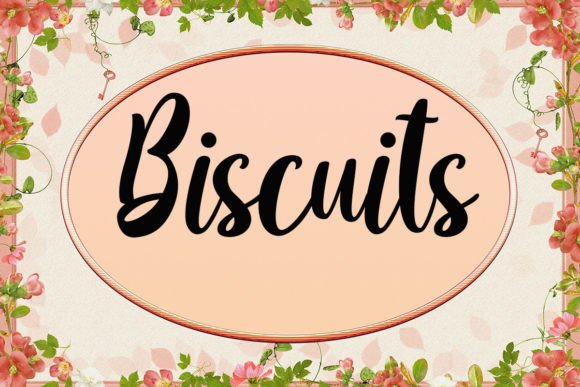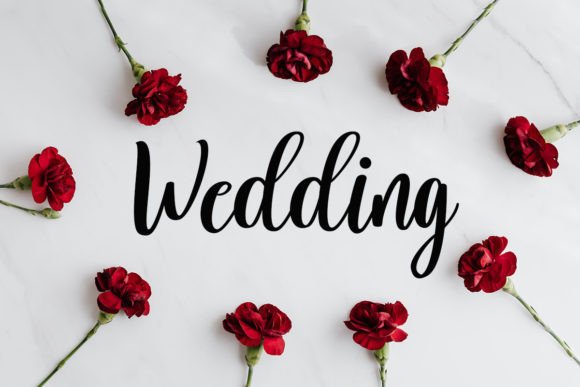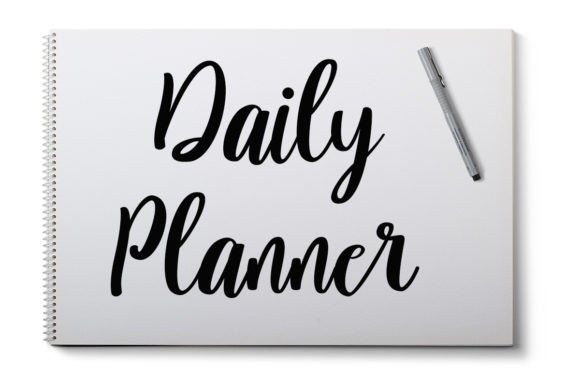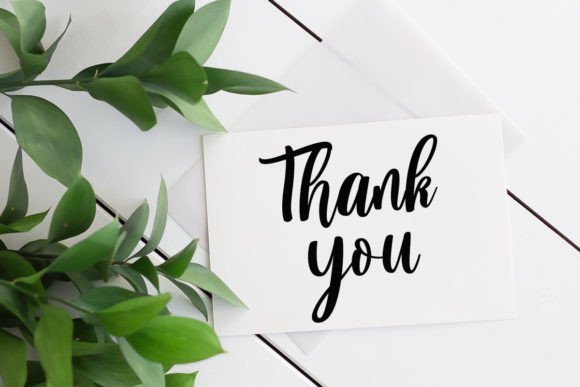
Discover the Elegance of Amily Font: A Flowing Handwritten Script
Are you on the hunt for a font that exudes elegance and sophistication? Look no further than Amily Font, a stunning flowing handwritten script that is sure to capture your heart. With its incredibly distinct and timeless style, Amily is the perfect addition to your favorite design projects. In this article, we’ll dive into the world of Amily Font, exploring its unique features, and how you can use it to create spectacular designs that leave a lasting impression.
The Characteristics of Amily Font
Amily Font is a beautiful example of a handwritten script font, boasting an elegant touch that sets it apart from other fonts. Its flowing curves and fluid lines create a sense of movement and dynamism, making it perfect for designs that require a touch of sophistication. The font’s distinct style is characterized by:
- Elegant letterforms: Each letter in the Amily Font is carefully crafted to exude elegance and refinement, making it perfect for high-end designs.
- Flowing connections: The font’s connections between letters are smooth and fluid, creating a sense of continuity and flow.
- Timeless style: Amily Font’s classic style ensures that it will remain relevant for years to come, making it a great investment for designers and crafters.
Why Choose Amily Font?
So, why should you choose Amily Font for your design projects? Here are just a few compelling reasons:
- Versatility: Amily Font is incredibly versatile, making it suitable for a wide range of design projects, from wedding invitations to branding and packaging.
- Emotional connection: The font’s elegant and flowing style creates an emotional connection with the viewer, making it perfect for designs that require a personal touch.
- Easy to read: Despite its elegant style, Amily Font is easy to read, making it perfect for body text and headlines.
Using Amily Font in Your Design Projects
Amily Font is perfect for a wide range of design projects, including:
- Wedding invitations and stationery: Add a touch of elegance to your wedding invitations, save-the-dates, and stationery with Amily Font.
- Branding and packaging: Use Amily Font to create stunning brand identities and packaging designs that exude sophistication.
- Signage and displays: Amily Font is perfect for creating eye-catching signage and displays that require a touch of elegance.
Tips for Getting the Most Out of Amily Font
To get the most out of Amily Font, here are a few tips to keep in mind:
- Experiment with font sizes: Amily Font looks stunning in a range of font sizes, from large headings to smaller body text.
- Pair with complementary fonts: Pair Amily Font with complementary fonts to create a unique and visually appealing design.
- Use it sparingly: Use Amily Font sparingly to create a sense of luxury and exclusivity.
In conclusion, Amily Font is a stunning flowing handwritten script that is sure to capture your heart. With its elegant touch, incredibly distinct and timeless style, and versatility, Amily Font is the perfect addition to your favorite design projects. Whether you’re a designer, crafter, or DIY enthusiast, Amily Font is sure to inspire you to create spectacular designs that leave a lasting impression.